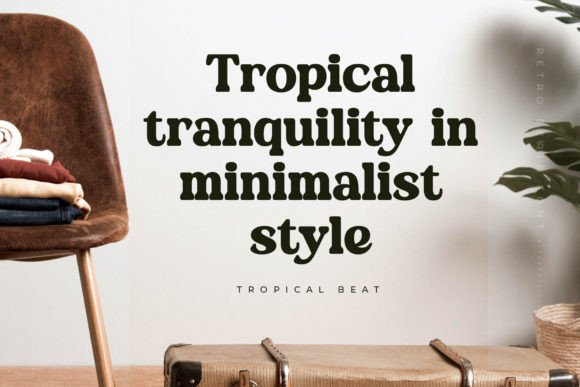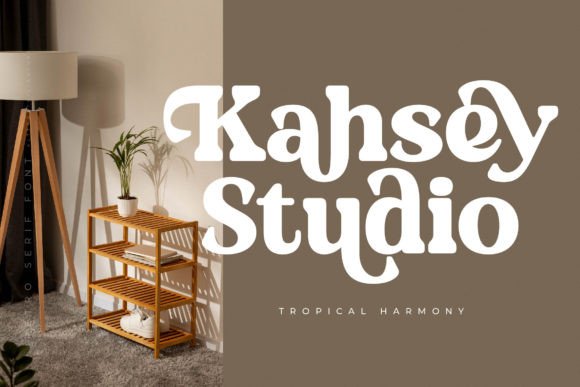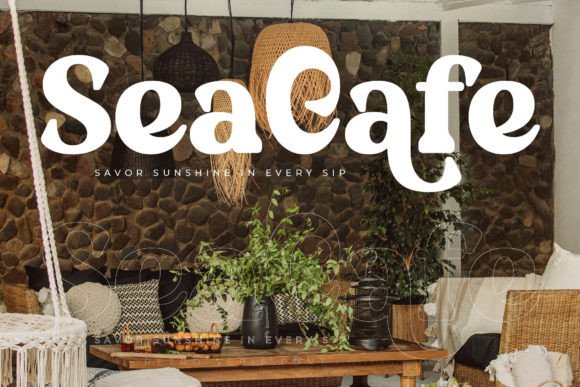
Daylist Beach Font
About the Daylist Beach Font
The Daylist Beach Font is here to transform your projects with its distinctive character and style. Daylist Beach – Retro Serif Font , from Letterena, is a Luxury Serif font, suitable for any projects such as: logos, branding projects, homeware designs, product packaging, mugs, quotes, posters, shopping bags, t-shirts, book covers, name card, invitation cards, greeting cards, label, photography, watermark, special events, and all your other luxury and beautiful projects that need a Luxury Serif taste.
Daylist Beach’s retro-serif design excels in headlines, short text blocks for branding materials, and packaging where its luxurious feel adds a touch of vintage sophistication. It’s ideal for projects emphasizing quality and craftsmanship, such as high-end product launches or boutique branding. However, its decorative nature makes it less suitable for body text or user interfaces requiring high readability.
This font’s personality is elegant yet playful; think upscale vintage, not overly serious. To balance this, pair it with a clean sans-serif like Montserrat for body copy or a geometric sans-serif like Futura for a more modern contrast. A script font like Great Vibes could add a touch of handwritten charm for specific applications, like invitations or logos.
Avoid using Daylist Beach for lengthy paragraphs or applications demanding maximum legibility. Its strength lies in creating a memorable visual impact in short, impactful statements, reinforcing brand identity, and enhancing product packaging.
Daylist Beach Font Usage Examples
Daylist Beach Font Example